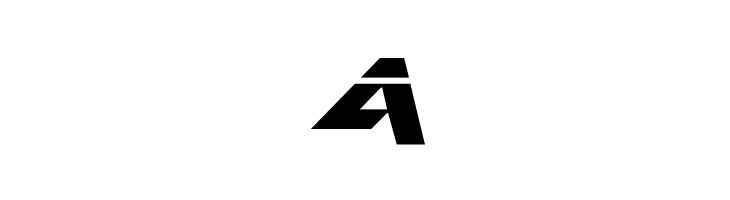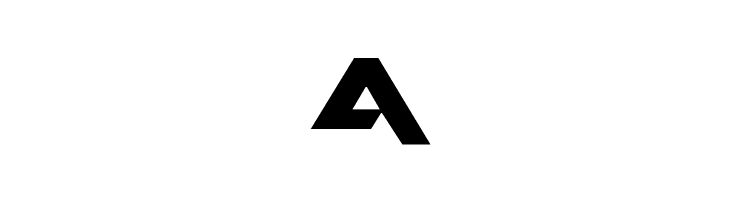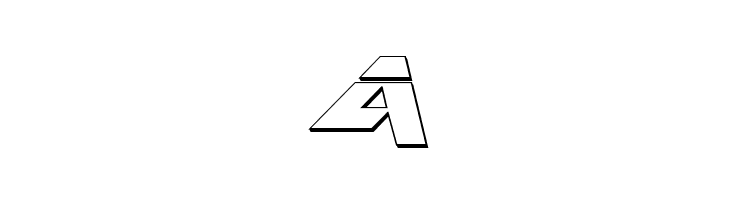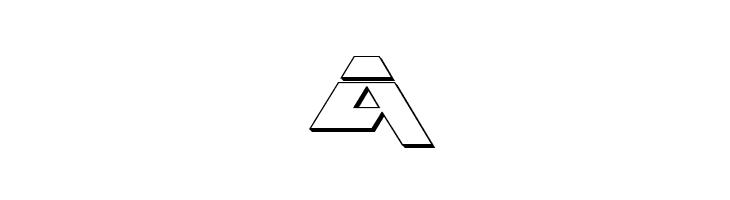
• Gearhead Expanded Italic
A bold, expanded, and italicized futuristic font with sharp, angular edges.
• Gearhead Halftone
A bold, futuristic font with a halftone pattern and geometric design.
• Gearhead Halftone Italic
A bold, futuristic font with a halftone effect and italic style.
• Gearhead Italic
A bold, italicized font with a futuristic, mechanical style.
• Gearhead Laser
A bold, geometric font with a futuristic and industrial design.
• Gearhead Laser Italic
A bold, angular, and futuristic font with a dynamic slant.
• Gearhead Leftalic
A bold, angular font with a futuristic, industrial design.
• Gearhead Outline
A bold, geometric outline font with a futuristic and industrial style.
• Gearhead Outline Italic
A bold, geometric outline font with an italic slant, perfect for modern and dynamic designs.
• Gearhead Regular
A bold, geometric font with a modern, industrial look.
• Gearhead Scanlines
A futuristic font with bold, geometric characters and a distinctive scanline effect.
• Gearhead Scanlines Italic
A futuristic italic font with a scanline pattern, ideal for tech and digital projects.
• Gearing-ZahnradABC
A bold, gear-themed decorative font with high contrast and industrial style.
• GEIST KNT
• GEIST RND
• GeldRegiertDieWelt
Finance-themed dingbat font with hand-drawn illustrations.
• Gelio Fasolada
A bold, angular font with a hand-drawn, artistic style.
• Gelio Greek Diner
A bold, geometric font with a Greek-inspired design and double-line detailing.
• Gelio Pasteli
A playful, hand-drawn font with bold, angular characters.
• Gelio Retsina
A bold, playful font with a hand-drawn, dynamic style.